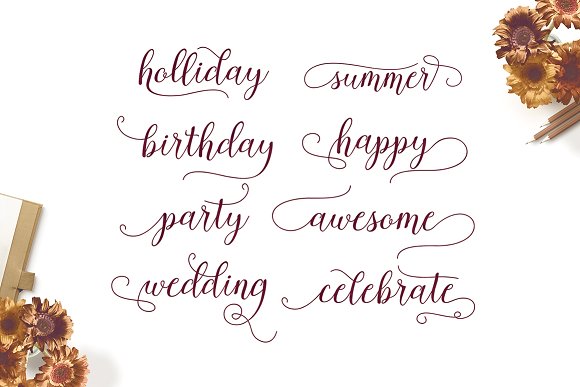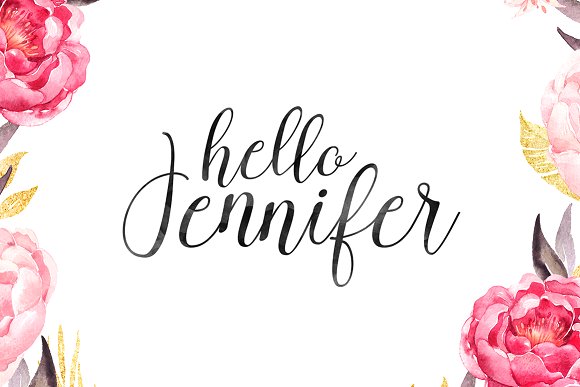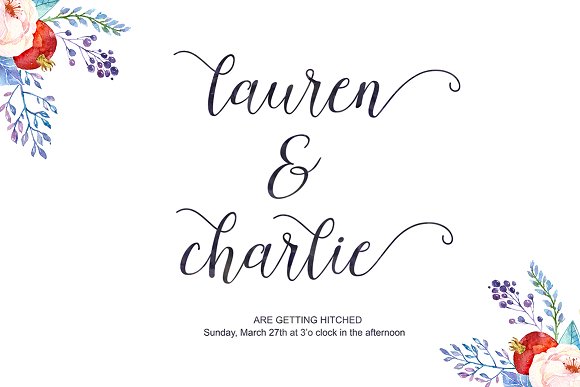
Introduction to Morenthya Font
Have you ever found yourself stuck on a creative project, yearning for the perfect font to bring your vision to life? The blank page stares back, taunting you with its emptiness, until suddenly, you stumble upon the perfect design resource – a font that breathes life into your work.
Meet the Morenthya Font, a stunning handwritten font created by the talented team at Area Type. This high-quality font is a treasure trove for designers, offering a world of creative possibilities. With its elegant, flowing script, the Morenthya Font is perfect for any project that requires a touch of sophistication and whimsy.
Key Features of Morenthya Font
- High-quality design resource suitable for various creative projects, including graphic design, digital art, and publishing.
- Unique, elegant script font with a transparent background, allowing for seamless integration with any design element.
- Supports a wide range of languages, including Latin, Cyrillic, and Greek alphabets, making it a versatile design resource.
- Available in various font sizes and styles, including regular, italic, and bold, to suit different design needs.
Honest Review: Morenthya Font
I recently stumbled upon the Morenthya Font, and I must say it’s a fantastic addition to any design resource library. With its elegant and modern design, it’s perfect for a wide range of creative projects.
One of the standout features of the Morenthya Font is its high quality and versatility. It comes in a variety of weights and styles, making it easy to find the perfect fit for your design. The font also features a transparent background, allowing for seamless integration with any background image or color.
What works well with the Morenthya Font:
- ✨ Wide range of weights and styles
- ✨ High quality and crisp design
- ✨ Transparent background for easy integration
- ⚠️ Limited language support (only Latin alphabet)
- ⚠️ May not be suitable for complex or technical writing
Overall, I’m thoroughly impressed with the Morenthya Font. It’s a fantastic resource for any designer looking to add some sophistication to their creative project. With its high quality design and versatile features, it’s definitely worth checking out.
Tips for Getting the Most Out of Morenthya Font
To get the most out of the Morenthya Font, follow these tips:
- Use the font on a transparent background to achieve a clean and modern look.
- Experiment with different font sizes and styles to create a visually appealing design.
The Morenthya Font is suitable for various creative projects, including:
- Business cards and letterheads.
- Brochures and flyers.
- Website headers and footers.
Alternatives to Morenthya Font
Amarante Font
Amarante Font is a high-quality, elegant script font suitable for creative projects requiring a touch of sophistication. It features a transparent background, making it ideal for use on digital interfaces. This font is perfect for designers looking for a luxurious feel in their designs.
Compared to Morenthya Font, Amarante Font offers a more refined and delicate look, making it ideal for projects that require a softer aesthetic. It’s available for free download and can be used for both personal and commercial projects.
Playfair Display Font is a luxurious, high-end font designed for use in creative projects that demand a sense of opulence. Its elegant design and transparent background make it suitable for use on digital interfaces and print materials. This font is perfect for designers who want to add a touch of sophistication to their designs.
Compared to Morenthya Font, Playfair Display Font offers a more dramatic and elegant look, making it ideal for projects that require a sense of grandeur. It’s available for free download and can be used for both personal and commercial projects.